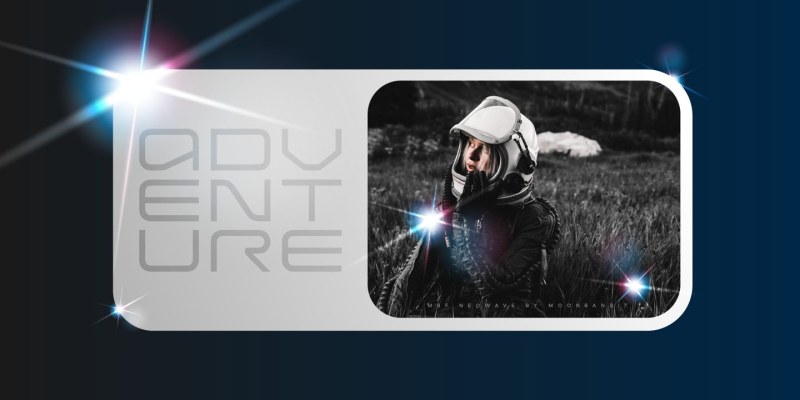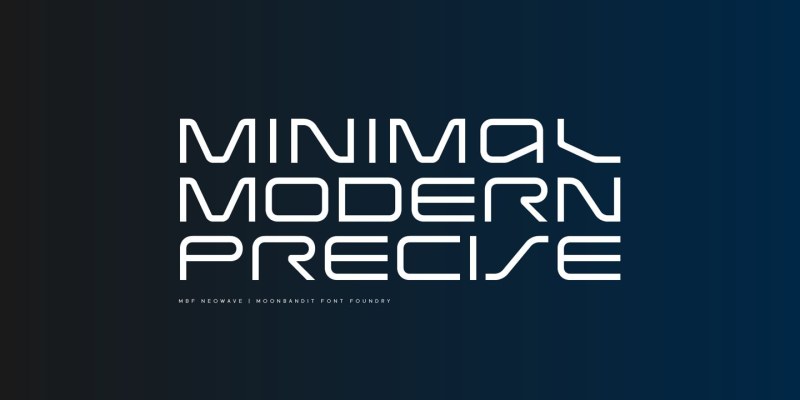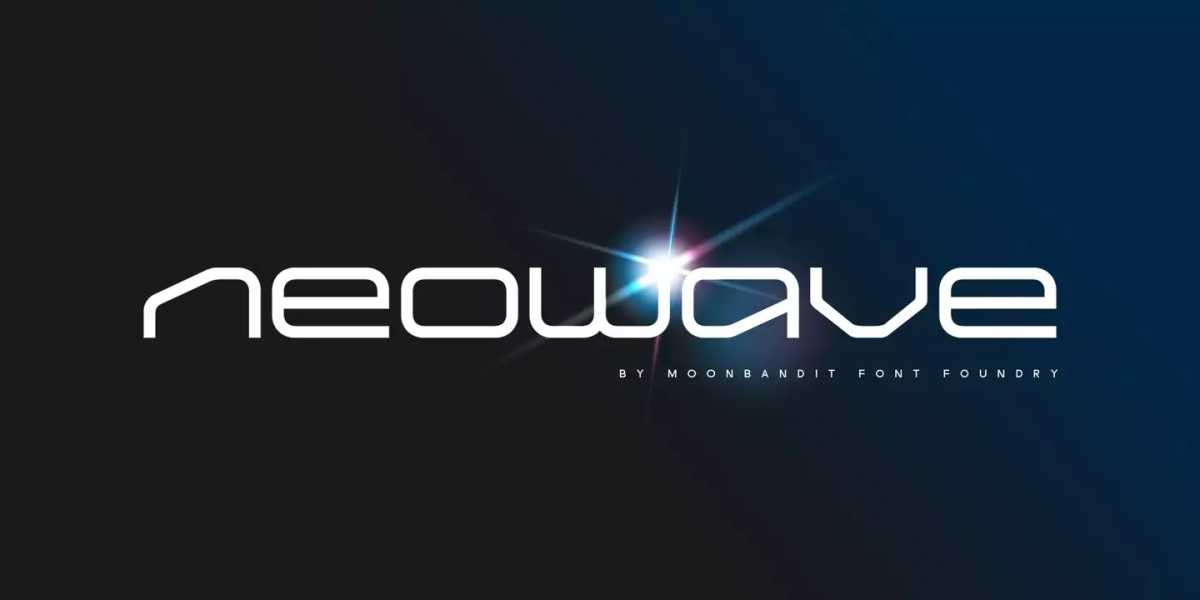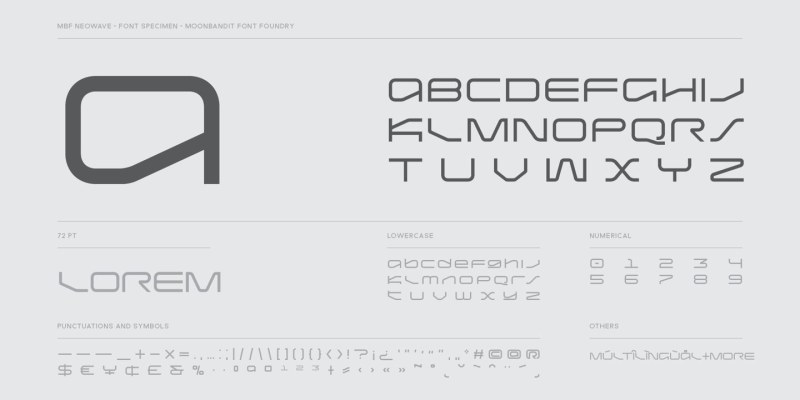
Neo Wave Font
Neo wave is a futuristic scifi display font. Wide and rounded typeface design with a modern minimalist approach. Perfect usage includes logo, poster, display, headline, t-shirt design and many more.
Neo Wave Font is a Display Fonts font that brings a professional and versatile look to your projects. Neo wave is a futuristic scifi display font.